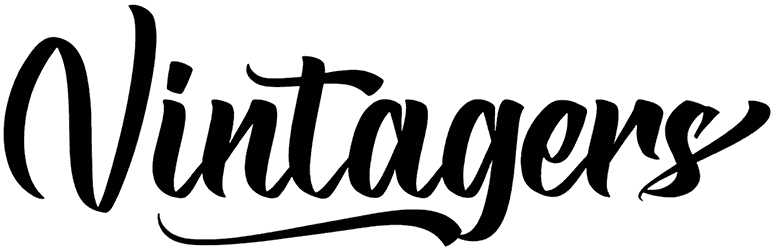
Vintagers Font
The script font, Vintagers, brings a sense of elegance to any project. Although it lacks numerical characters, this stylish and contemporary font is perfect for use in social media graphics, invitations, and similar graphic designs.
Unique and captivating, Vintagers is a font that will leave a lasting impression. It is attractive because of its flowing curves. Currently, RB’s extensive font collection includes the Vintagers font for your personal use.